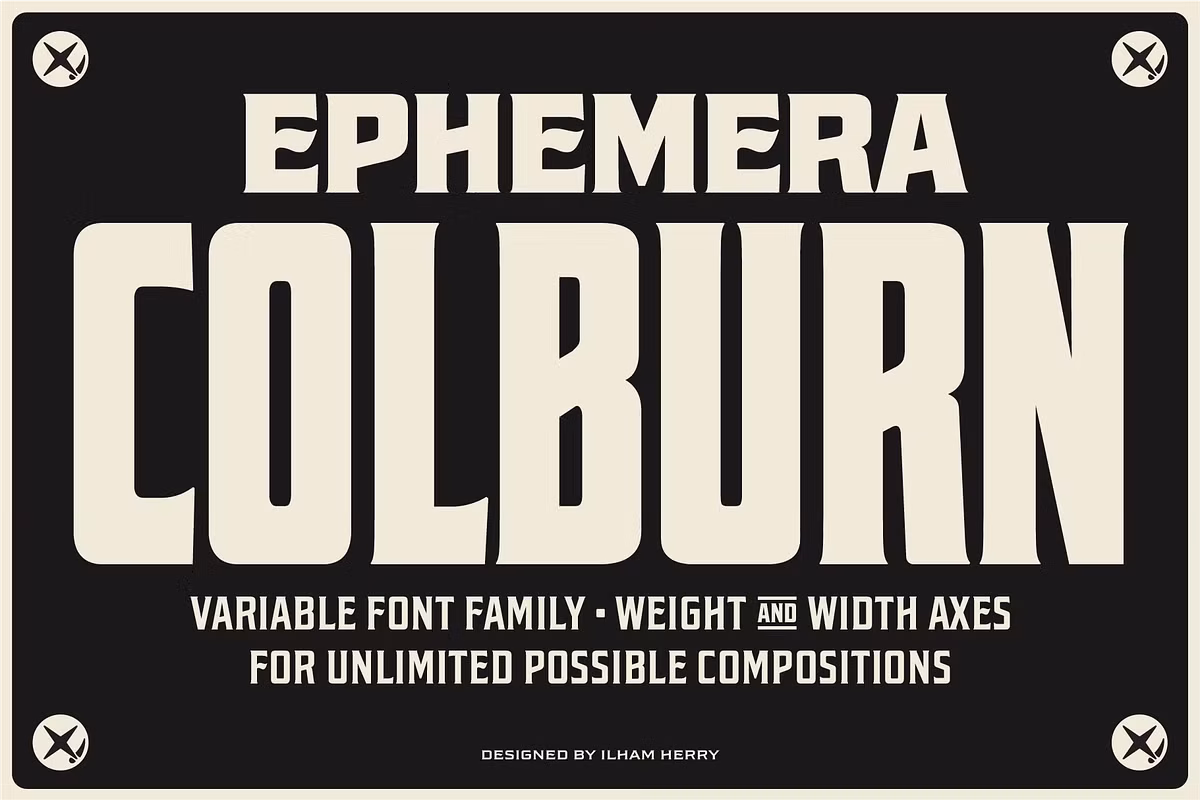
EFCO Colburn - Variable Font Free Download is a modern, highly versatile typeface that combines clean, contemporary design with a customizable structure. Perfect for a wide range of creative projects, including branding, websites, logos, and print materials, this variable font allows you to adjust the weight, width, and other aspects of the font, offering endless possibilities for your designs.